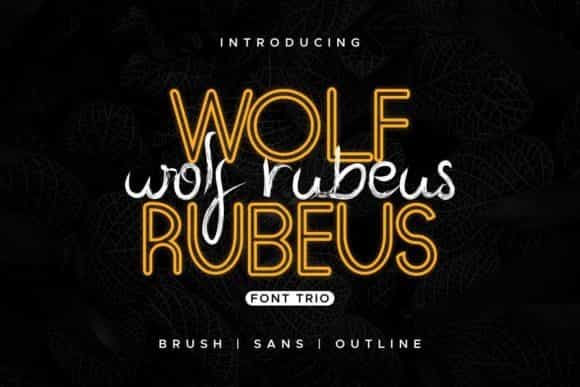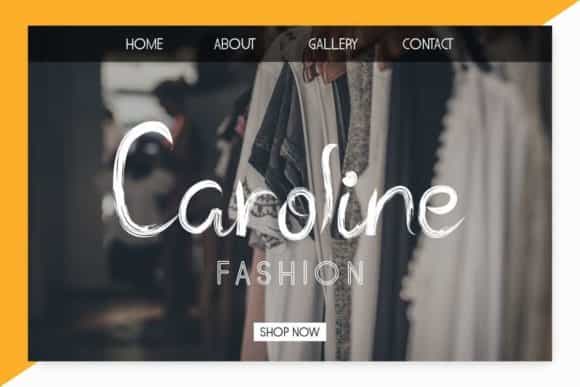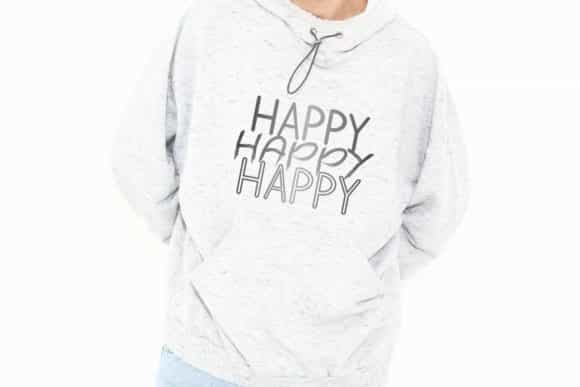
Wolf Rubeus Font is a font duo with contemporary vintage design styles, available in script and Display Sans serif typefaces. These two cuties would be a great choice to match in your design.